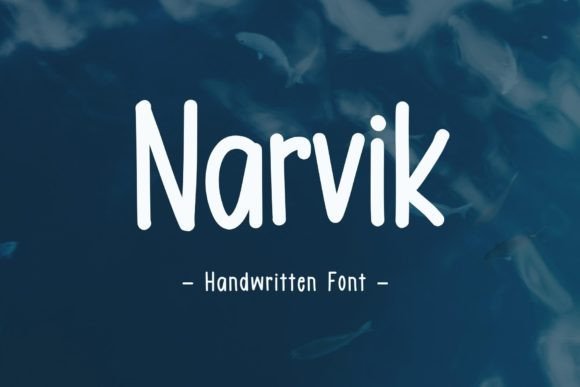
Introducing ‘Narvik’ Fonts, the captivating script font family designed by No.9 Lettering that will transform your creative projects into works of art. Immerse yourself in the enchanting world of handwritten scripts, where every letter carries a tale of elegance and charm.
‘Narvik’ Fonts is meticulously crafted to evoke a sense of nostalgia and authenticity. Its neat and cute handwriting style exudes a friendly and inviting aura, making it ideal for a wide range of creative endeavors. Whether you're designing T-shirts, mugs, wall art, bags, or crafting with funny quotes, these fonts will add a personal touch that resonates with your audience.
Unleash your creativity with ‘Narvik’ Fonts and design captivating digital presentations that leave a lasting impression. Create greeting cards and invitation cards that speak volumes about your thoughtfulness and attention to detail. Explore the endless possibilities of sublimation and transform ordinary objects into personalized masterpieces.
‘Narvik’ Fonts is not just a collection of letters; it's an invitation to embark on a creative journey where your imagination takes center stage. Embrace the beauty of handwritten scripts and let your designs radiate warmth, charm, and individuality.